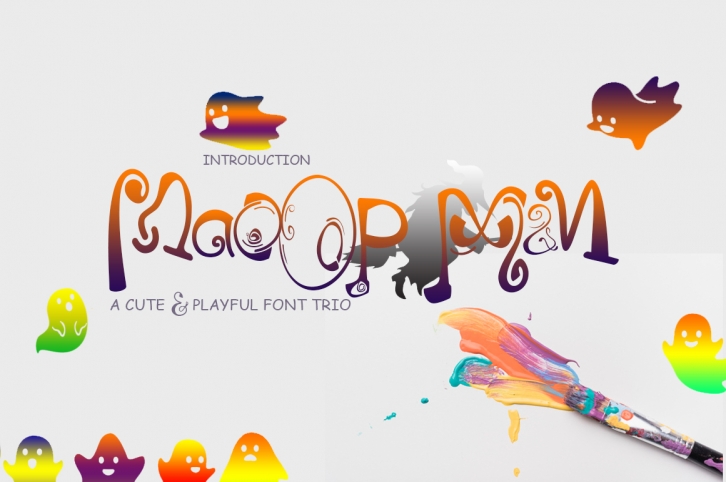
MaoopMan is a trendy and unique font with an authentic style. It was designed by AsbakLab and it's a great choice for creative people who need such a font. It was released on January 16, 2020 and the file size is 9.65 MB. MaoopMan will add an organic vibe to any design idea!